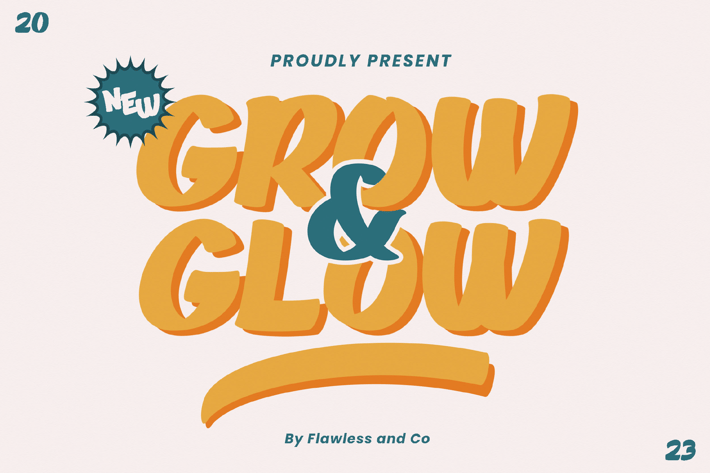
Grow and Glow - Playful Display Font
Introducing "Grow and Glow" - A Playful Display Font. Step into a world of imagination and wonder with "Grow and Glow," a whimsical display font designed to infuse your designs with a sense of joy and playfulness. With its charming characters and vibrant energy, "Grow & Glow" is the perfect choice for projects that demand a touch of creative flair.
Uppercase alphabet A-Z
Lowercase alphabet a-z
Alternate Character
Numbers 0-9
Some punctuation